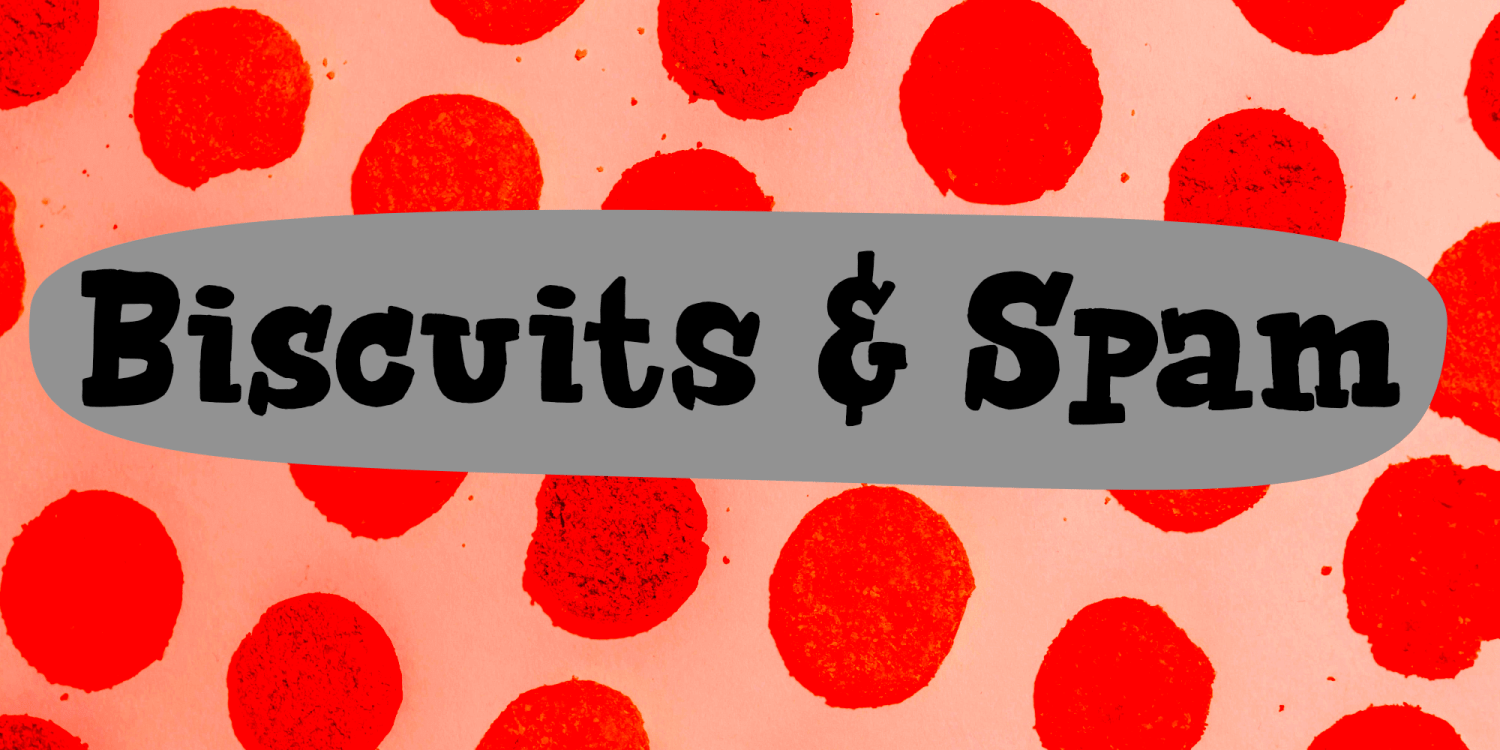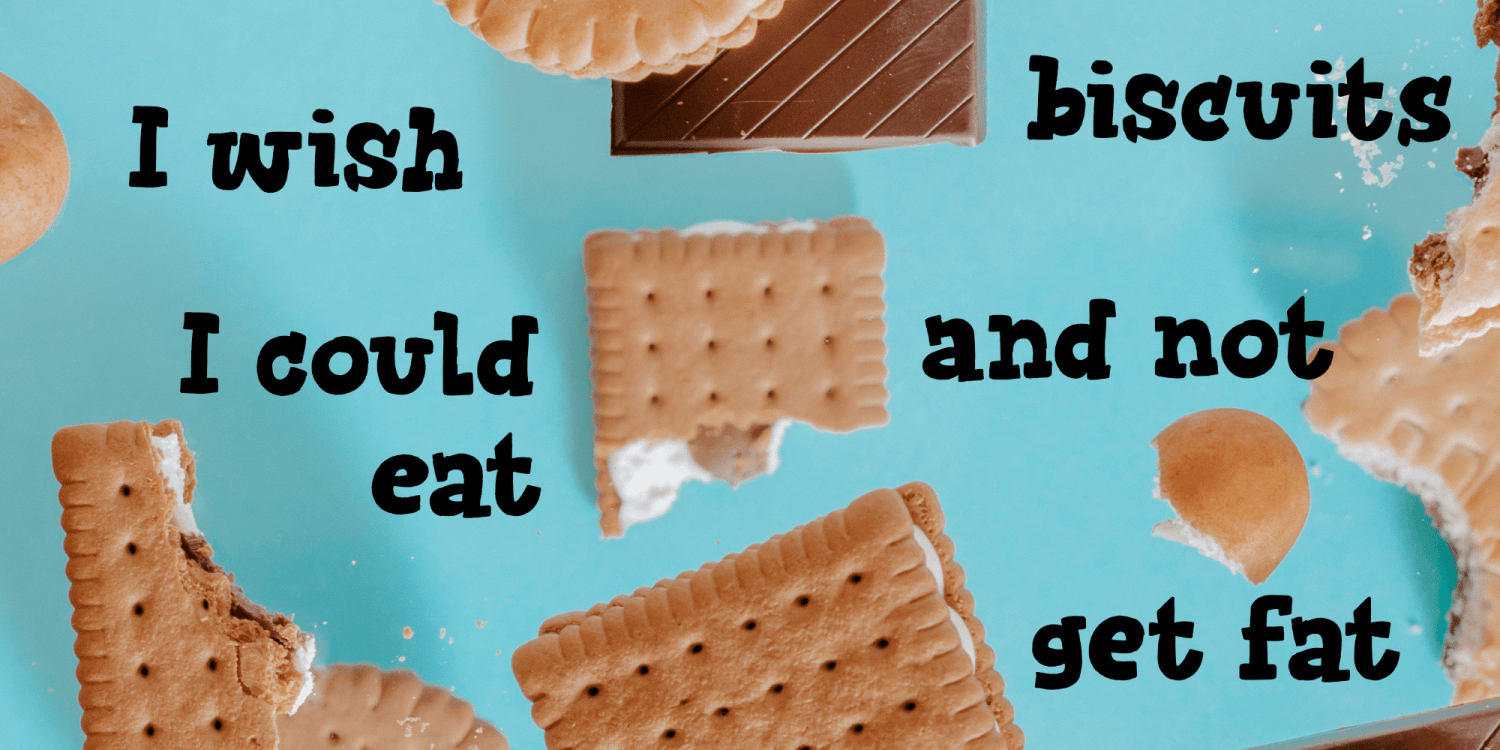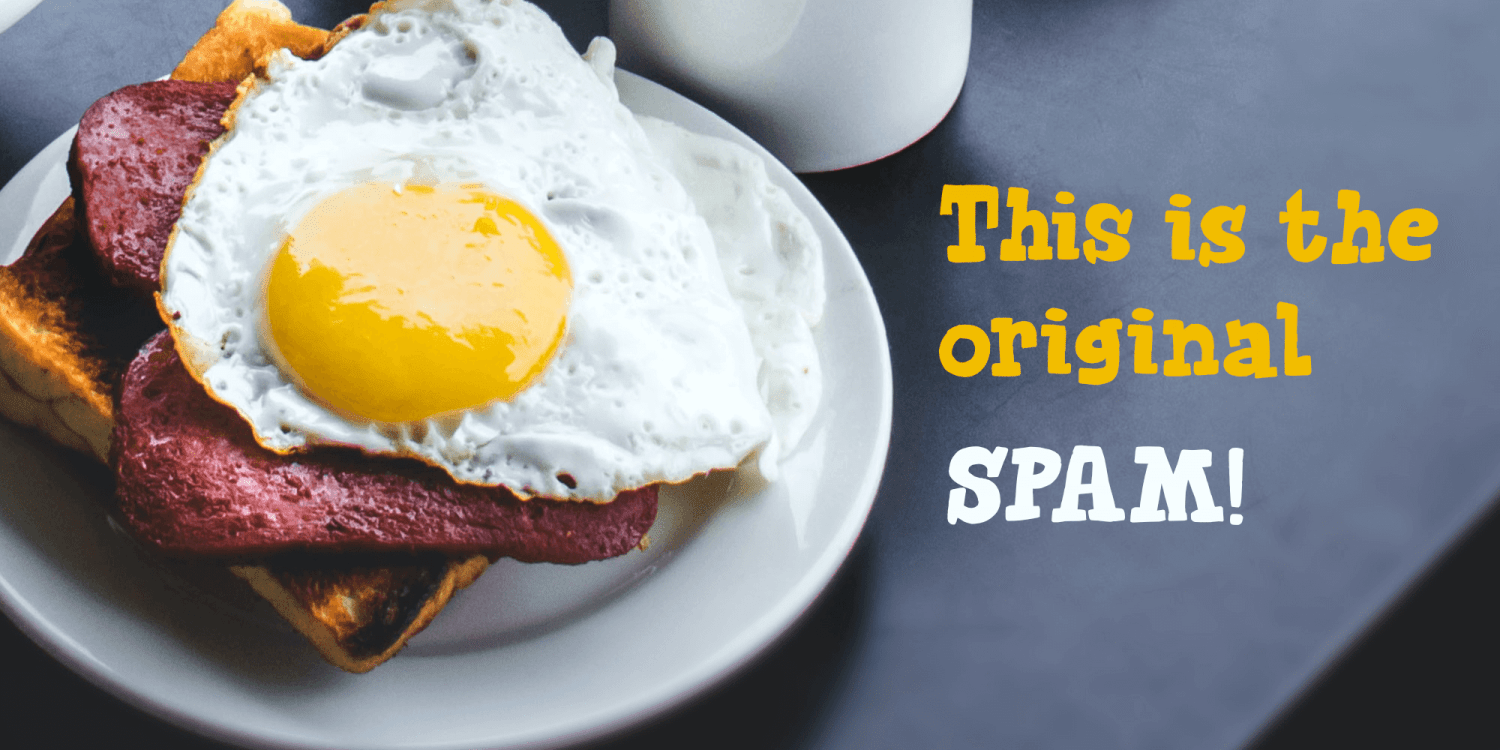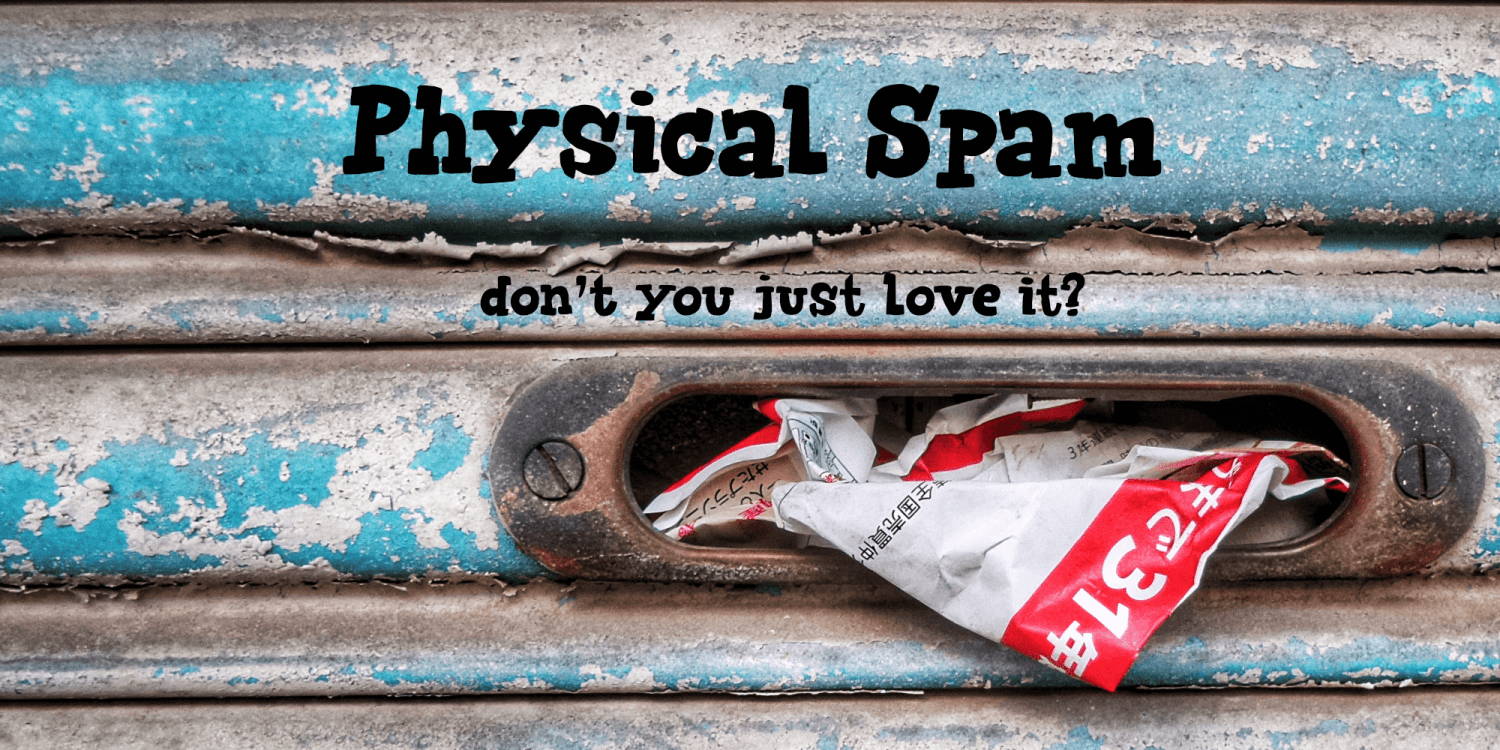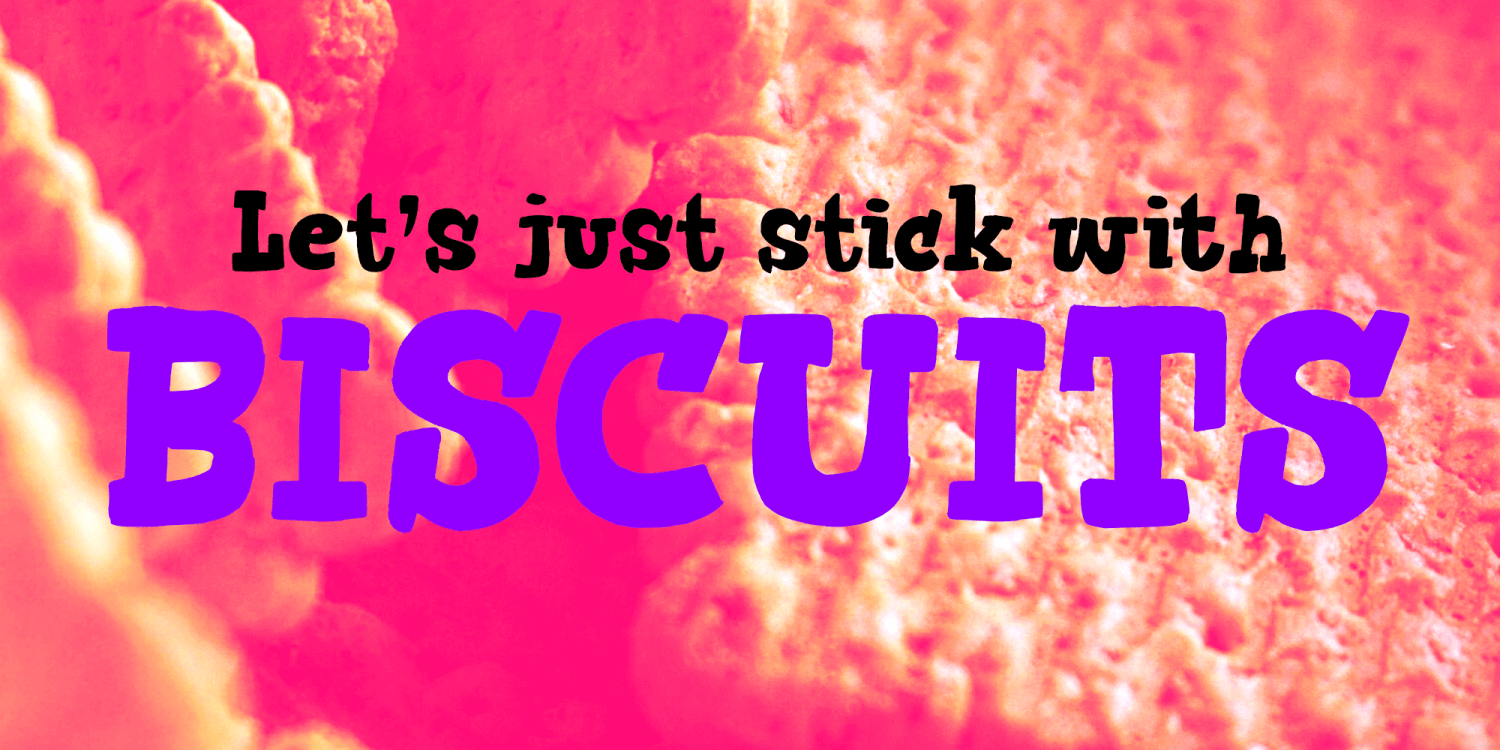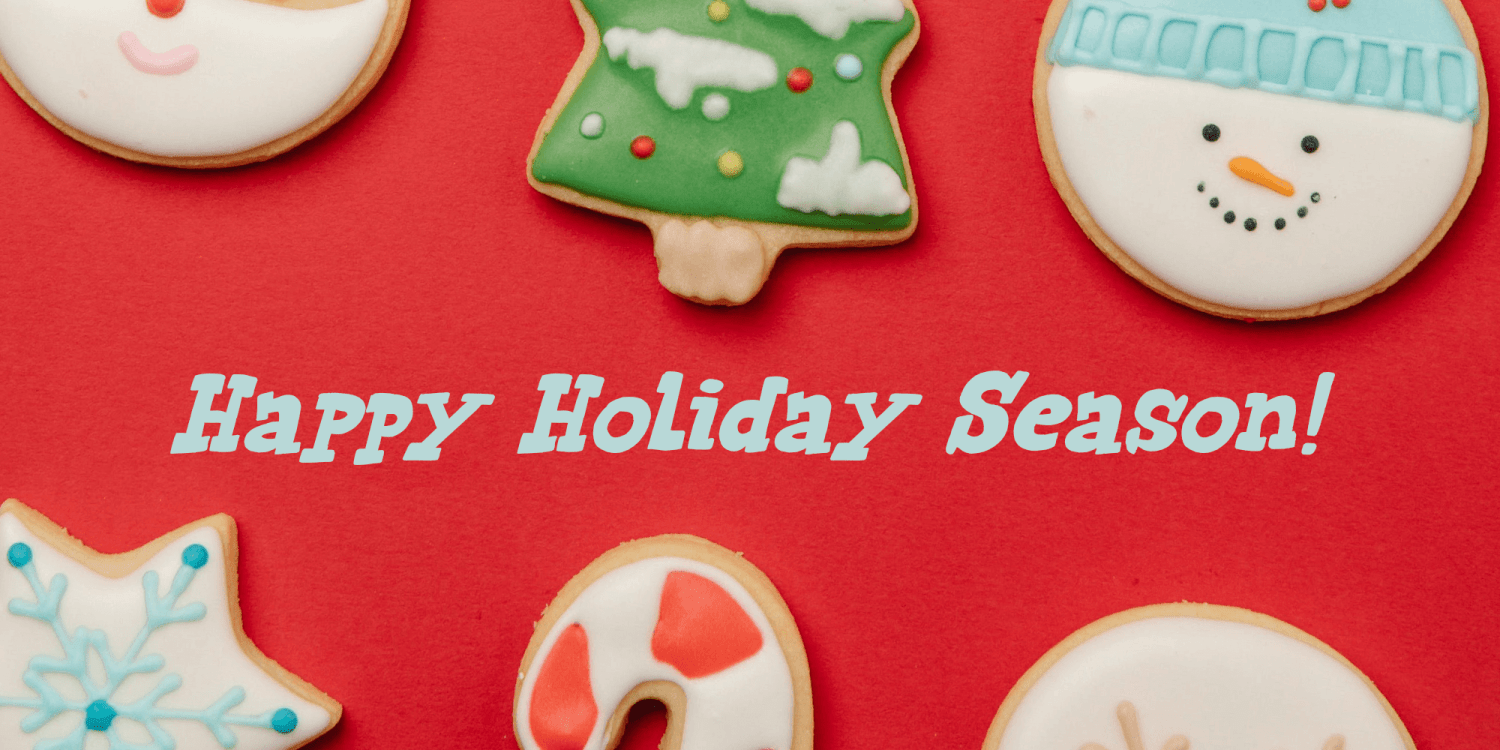
Biscuits & Spam
I remember that my auntie once made a dish called ‘Macaroni and Smac’. It consisted of little ‘elbow’ macaroni, Spam (which in Holland was called Smac), cheese and ketchup. I am sure it didn’t contain on of your five a day, but it was delicious. As far as I know, I have eaten it only once, but it did make a lasting impression!
Biscuits & Spam is a handmade ‘Western’ style font, which I found in my ‘unfinished fonts’ folder. It comes with multilingual support, a full set of alternates for the lower case letters and a really happy vibe.